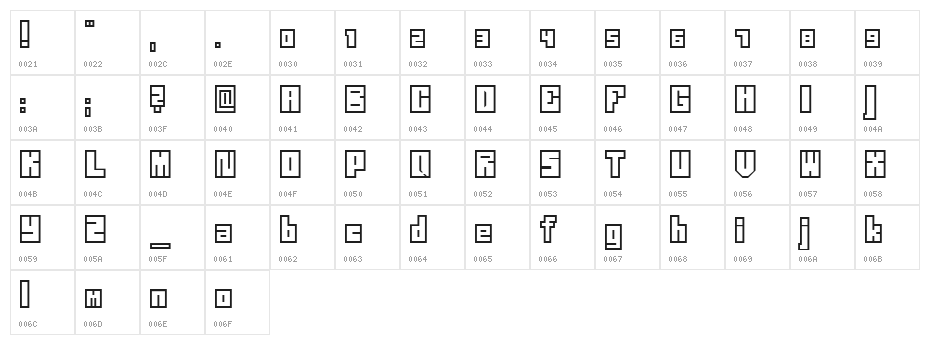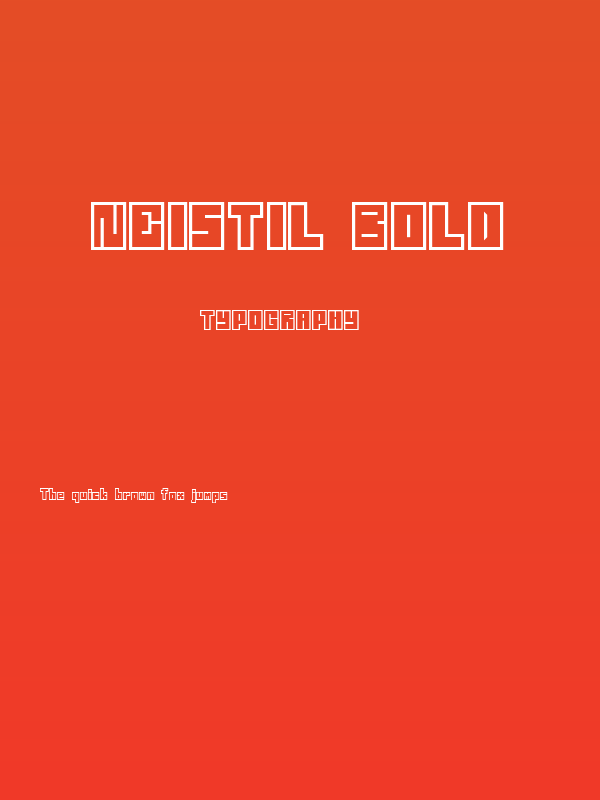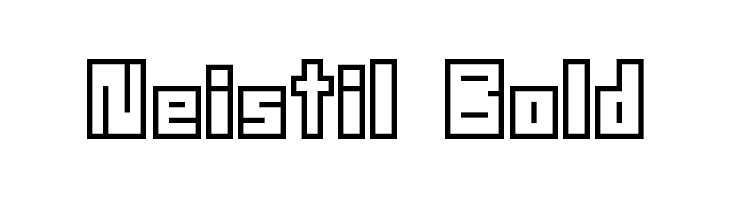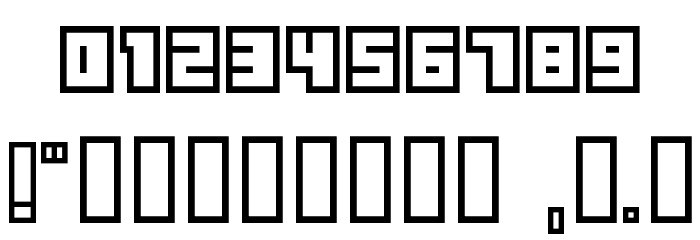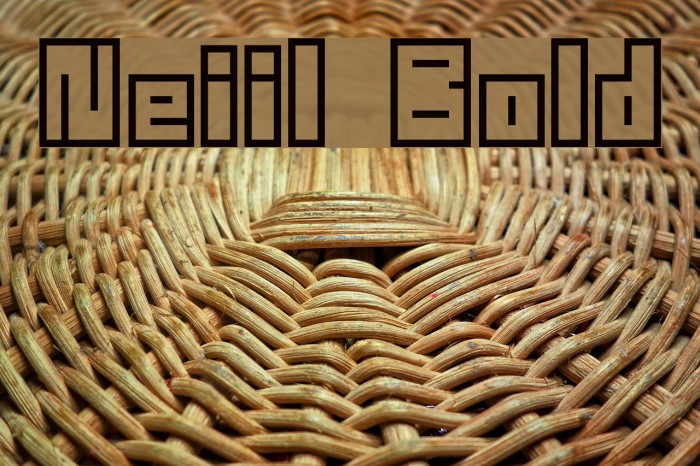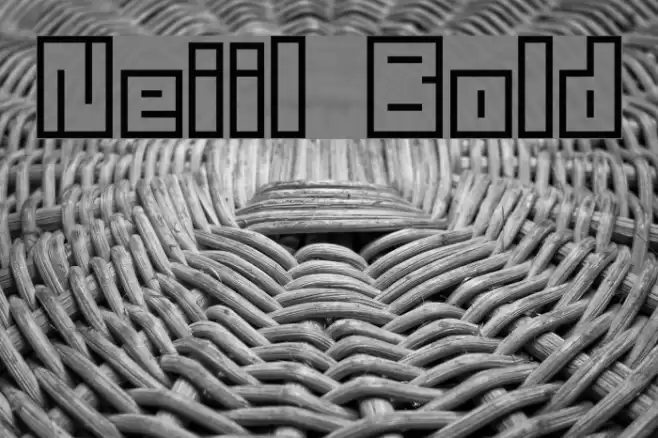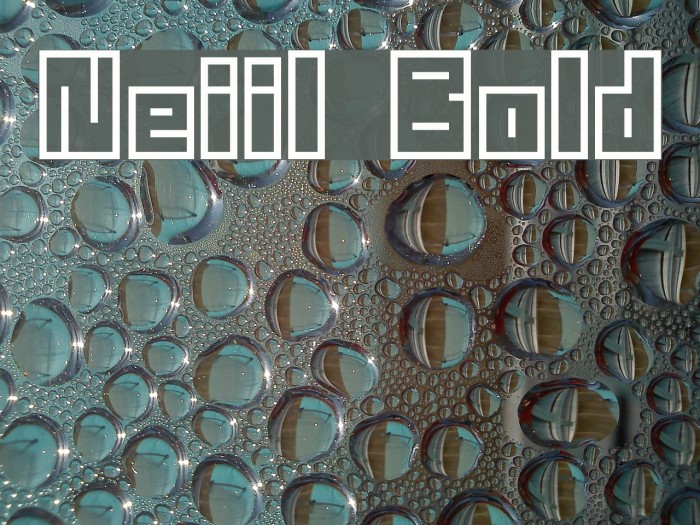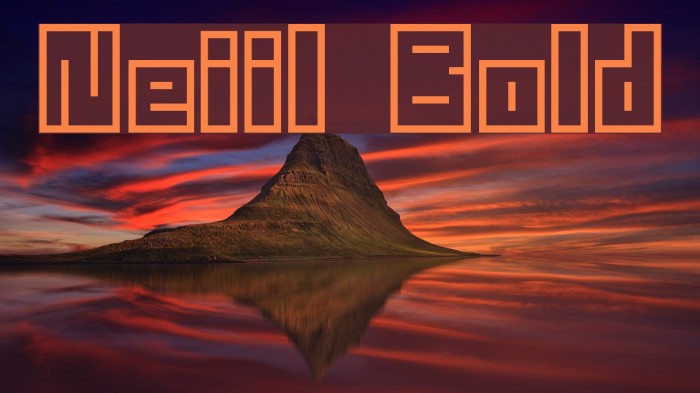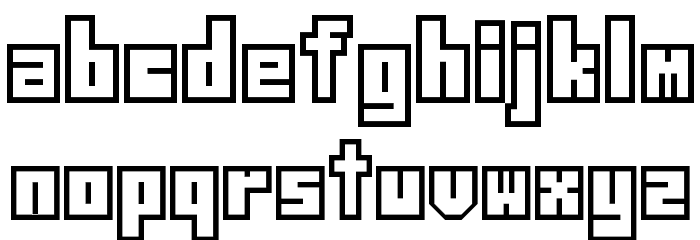
Neistil Bold Font
Neistil Bold Description
This font features a bold, geometric design with a strong, boxy structure. Each character is enclosed within a square or rectangular outline, giving it a distinct, modern appearance. The uppercase and lowercase letters maintain a consistent height, contributing to a uniform look. The numbers and special characters follow the same design principles, ensuring cohesion across all elements. The font's style is reminiscent of digital or pixelated text, making it suitable for projects that require a futuristic or tech-inspired aesthetic.